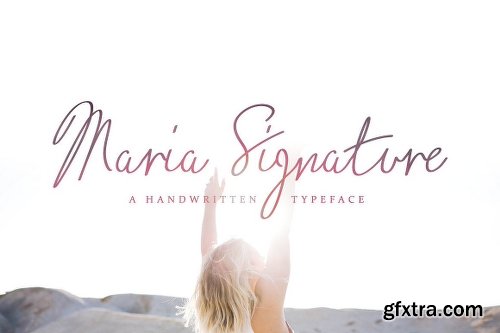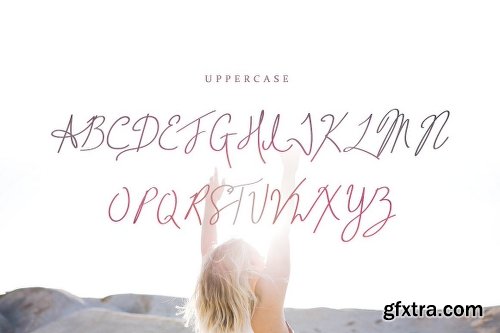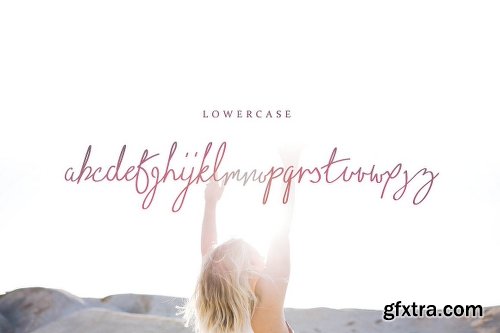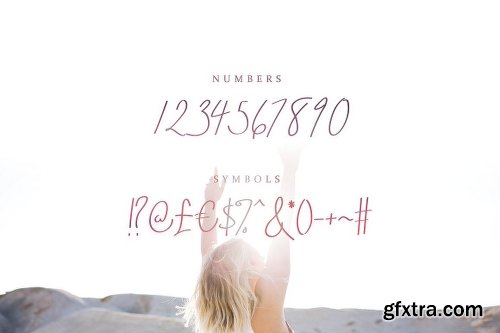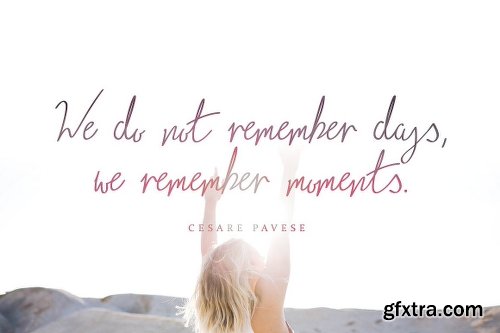
Maria Signature is a new handwritten typeface. It features calligraphic script elements all hand drawn with pen and paper, then manually traced to vector format. Maria is perfect for authentic handwriting and signatures.
This signature font includes all uppercase and lowercase letters, numbers and most common symbols and punctuation. And thanks to extensive kerning, Maria flows from letter to create beautiful cursive handwriting.